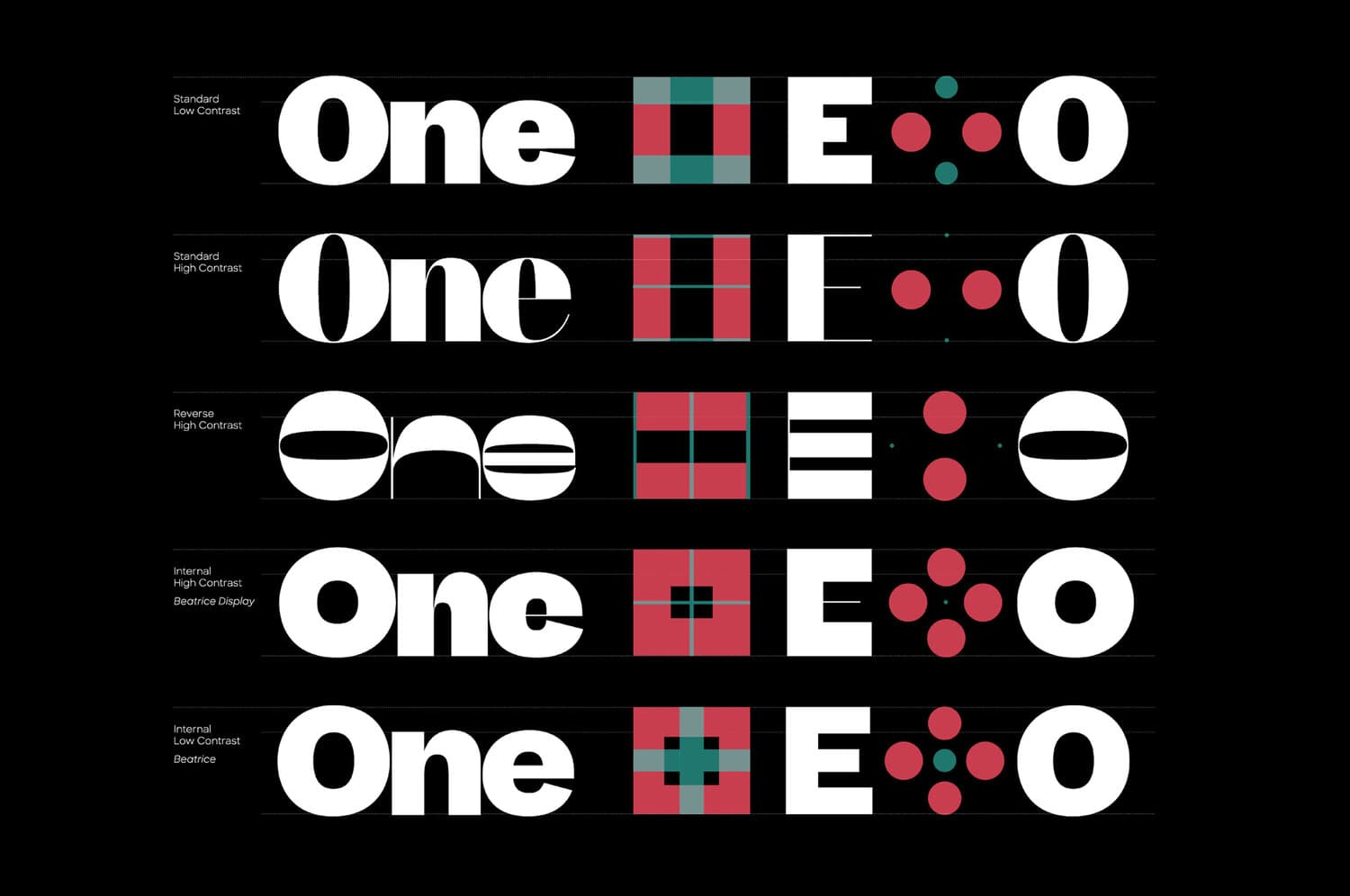
The Dynamic Duo Behind
Sharp Type
We visited the Sharp Type Foundry in Chinatown, NY and talked with Chantra Malee, Co-founder and CEO, and Lucas Sharp, Co-founder and Type Director about their journey from Granada, Spain to the States, their inspiration and the future of typefaces.
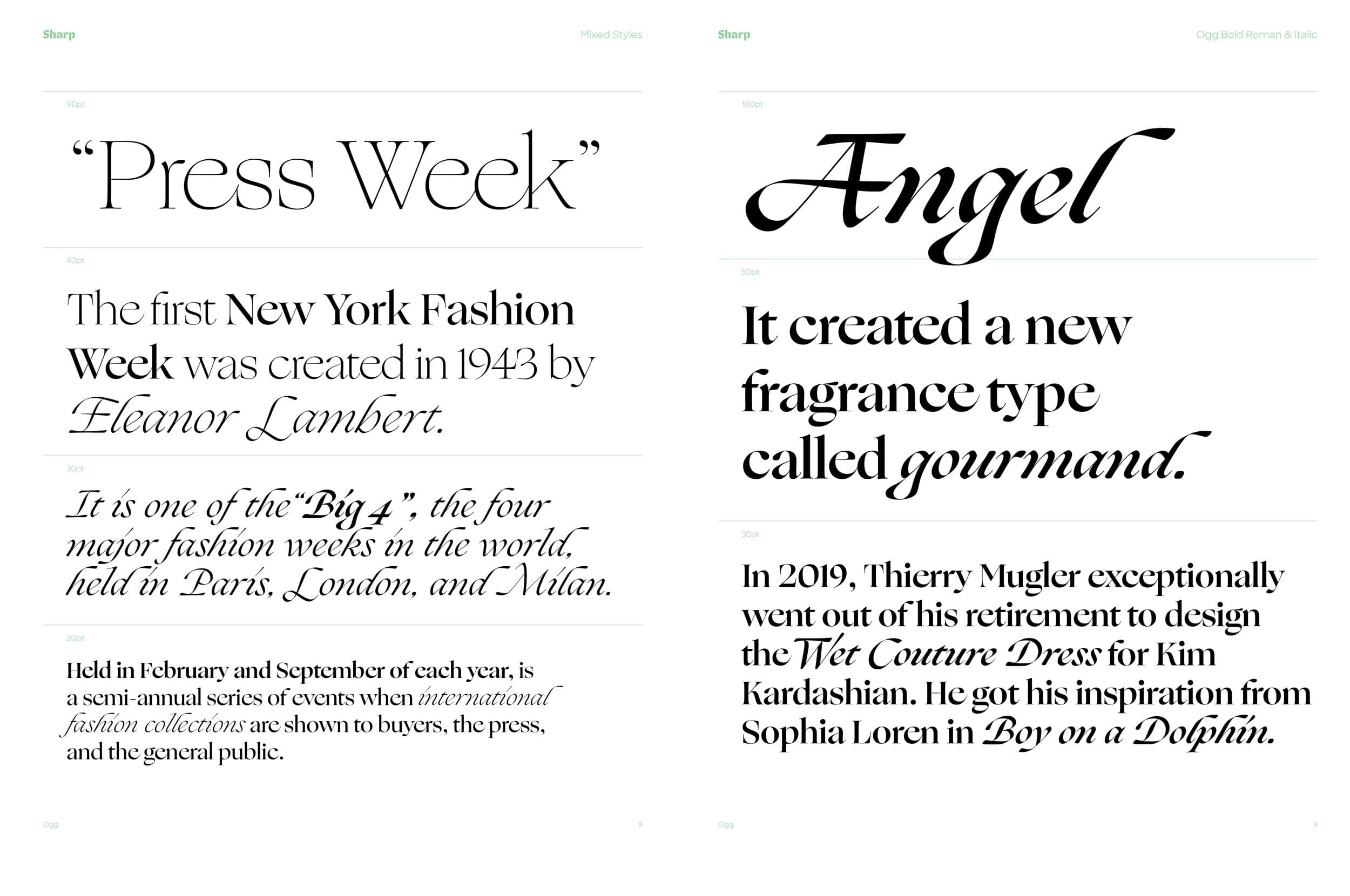
Can you tell us a little bit about your backgrounds and how you came to develop Sharp Type?
Chantra: Well, we both went to Parsons School of Design. That’s where Lucas and I met. I was in the Design and Management Program, where I graduated with a Bachelor of Business and also focused on graphic design and branding. Following graduation, I worked at a boutique branding agency with a focus on the food & hospitality industry. Lucas had been trying to get me to join him in business for a long time, because we have very complementary skill sets. I did eventually in the summer of 2015.
Lucas: I started in Type under Joshua Darden, who’s like a mentor for me. He was my teacher at Parsons, worked for him for two years, and then he kicked me out of the nest. I published my first typeface and was able to just do freelancing and keep developing my library, and connected with the people at the Village. Chester and Tracy published my first real typeface. I had a typeface on my senior thesis project. I put in on my MyFonts.
What was your first type font?
Lucas: My first one on MyFonts is called Hera Big. It’s this crazy, fat face, it’s cool.
Chantra: We did find it in Granada (Spain), where we were living for three years, being used for a Flamenco Studio.
Lucas: Yes, it’s gratifying. It’s fun when you see it in a place you weren’t expecting to know about, and that’s when it’s used really good that’s super exciting. Then I was just developing my library, publishing on Village and was trying to get Chantra to join because I knew that our skill sets would be super-complementary.
Chantra: Which I thought was probably true, but also a terrible idea to work together. My parents worked together and they still do, and I wasn’t sure if that is what I wanted too. But it ended up coming naturally.
Lucas: We’re definitely navigating through because we’re both very type A and very creative, so we both have a very specific idea of how some things should be. There’s a lot of upside too. We built this thing together. We were able to live in Spain for three years while we were building it, which was very resource-efficient. We were living in Granada, rent was very inexpensive. We were very tapped into the pace of life there and were very productive, very healthy. That was an amazing time. We share victories together like building this thing together has been really rewarding.
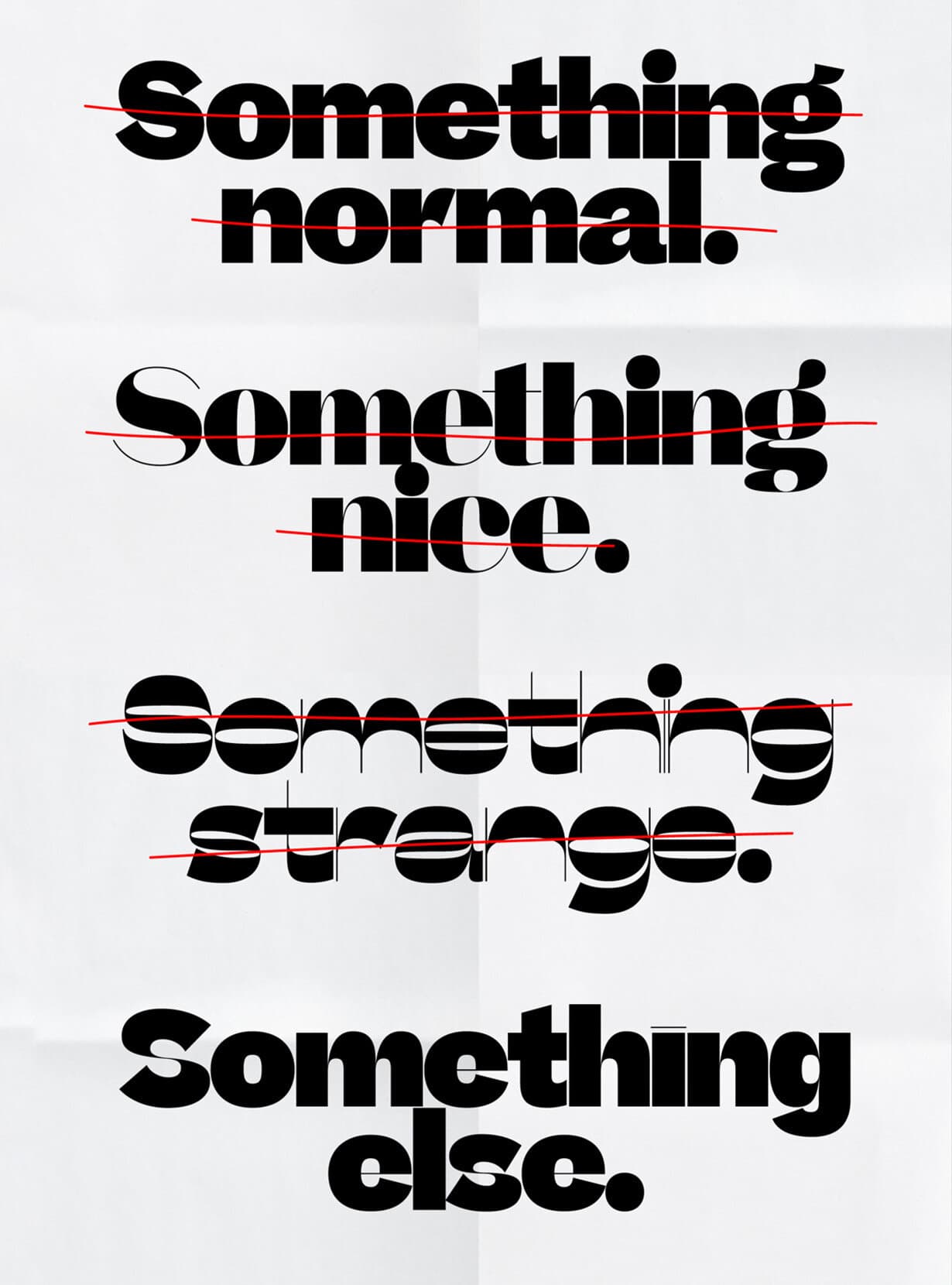
What made you guys want to move back to New York after Spain?
Chantra: We had never moved to Spain with the intention of staying there forever. We originally were only going to stay there for a year, and then we realized that that was way too soon so we stayed another year. We were like New York City people. We wanted to have a new experience which is why we choose a smaller city, and we learned all the benefits of being in a more tight-knit community again. It made us slow down. We didn’t realize we needed to slow down until we left New York City. Then we got a little bit crazy, so we moved to Madrid which I think was a perfect transitional city before coming back here. We had more and more responsibilities, and we knew we had to come back to the real world. Which was a bit of a shock actually when we first got here.
What projects stand out the most to you while you started Sharp Type?
Chantra: We got to work on the Dropbox project, which was originally developed by a former partner at Collins, Matt Luckhurst. He led the San Francisco team who created the incredible Design deck for Dropbox that we got to see. It was just Sharp Grotesk everywhere, way more than we even see now in the final product. It was just this perfect amalgam of every sort of creative outlet. There was illustration, there was photography, there were visual effects, and then there was our type mixed with a million colors. We were brought on later in the game by Dropbox. They were just amazing to work with, in the sense that they truly supported a creative community, and it really showed in their work. We not only got to see our work used to its full potential, but they also commissioned us to do international scripts.
Lucas: It was definitely a very awesome reputation of the very kind of stale direction that a lot of tech branding has been going.
Chantra: I think that what was so refreshing about it too, is that I actually just sent something over to It’s Nice That about this. Tech and the Apple brands of the world have really influenced design in this decade. It’s very logical. It’s white backgrounds, it’s perfect layouts. Even the re-brands are taking the idiosyncrasies and the charm of an old established brand and making it cold and sterile. It’s logical. You can re-skin it and reapply it in many instances, but it loses a lot of character along the way.-I think we were really excited to see Dropbox that was really breaking the mold. It’s still tech, it’s still similar. It’s the same industry, but they were really pushing the envelope much further.
Lucas: The concept of it was how far can we push the design space to the absolute extreme? I’m really proud of the black weights where there was all the negative spaces. It’s really about exploring the edges.
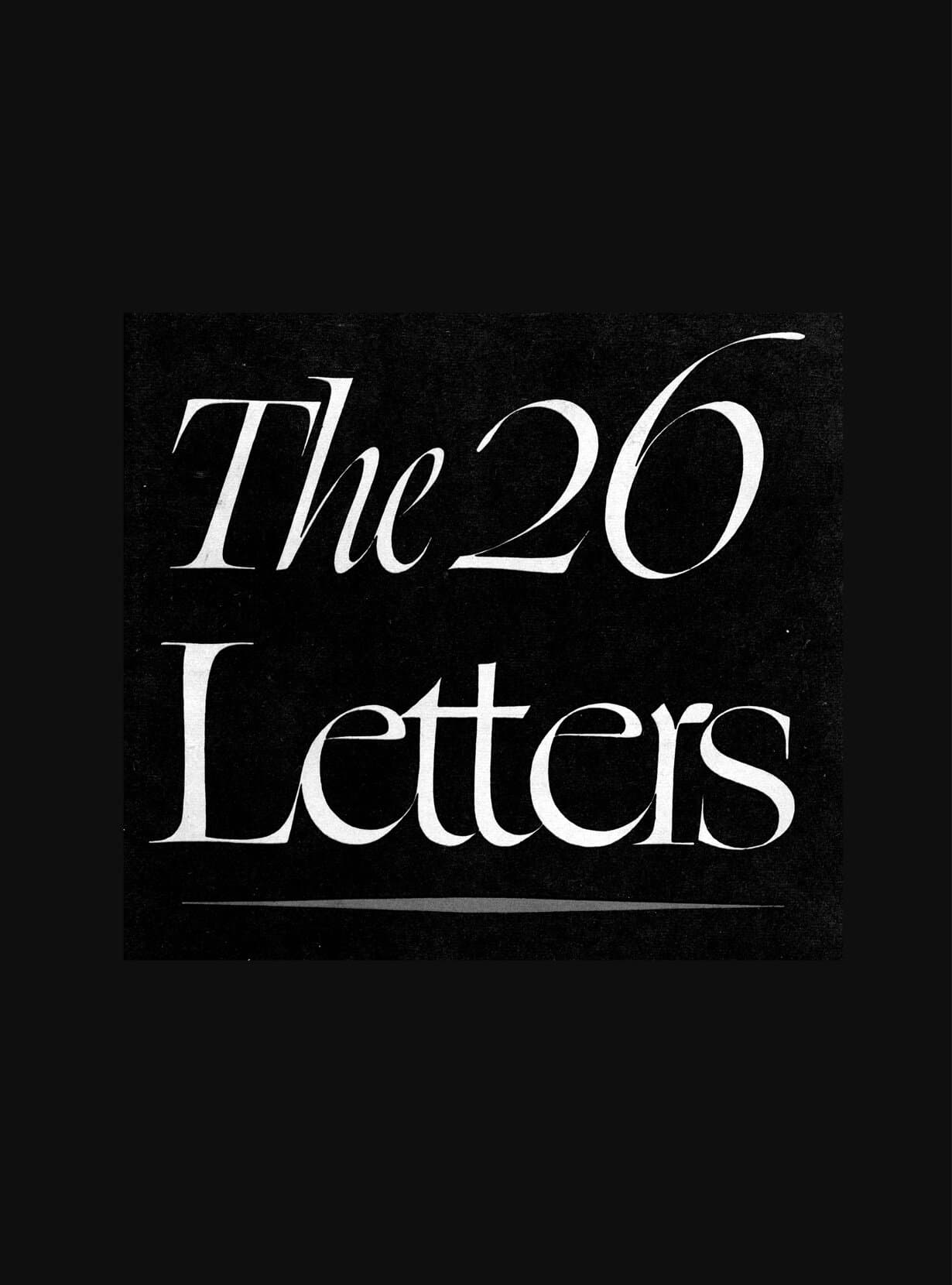
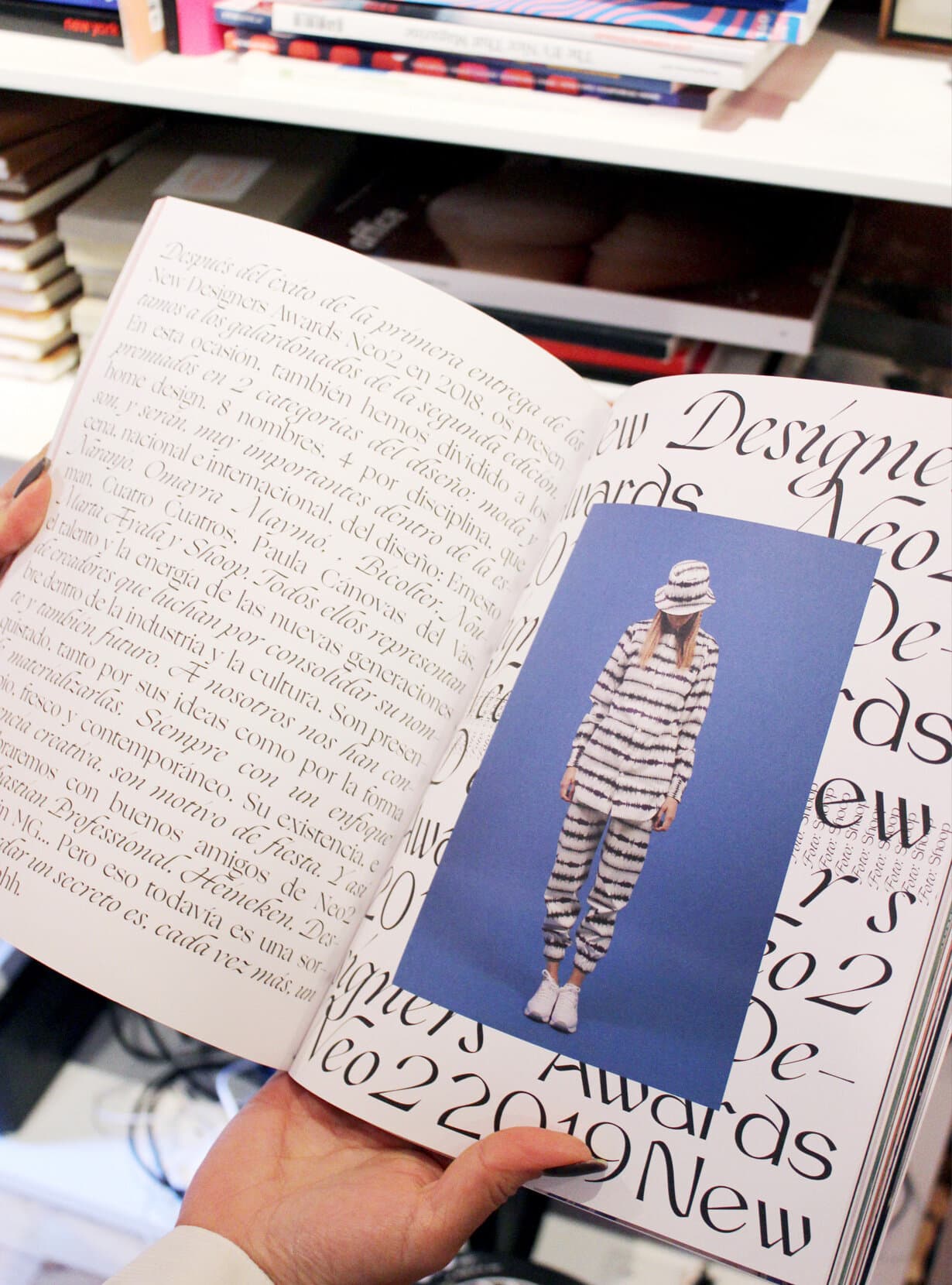
How do you come up the fonts and where do you draw inspiration from?
Lucas: Some of it is based on historical source materials. I think other foundries put a lot more emphasis in that. They have insane libraries and everything is meticulously researched, and they can go through every single letter and show exactly where they got the idea for this and that. I think every good typeface is like an amalgam of invention and hommage. We tend to put more emphasis on the invention side of it. There’s these conventions that you’re subconsciously look for as a reader, designer, consumer type, that dictates associations and feelings. You need to work within these predefined genres. Within that, I think it’s really important to not take anything for granted, to try out crazy stuff, try to invent new genres if you can. Our process is very organic, and we get inspiration from really random places. My favorite font that I’ve drawn recently was based on the book jacket lettering of this obscure book designer in the 1920s.
Lucas: I’d say I’m most excited about the stuff I’m working on right now. Something I’ve been really obsessed with recently is Connor Davenport’s Garnet. It’s awesome, like Stephenson Blake American grotesque revivals. The typeface is about the dialogue that was happening trans-atlantically, like the different British and American families on the East Coast referencing each other. I’m most excited for the new talent that we’re going to be representing. We have a lot of releases from new designers slated for next year and I can’t wait.